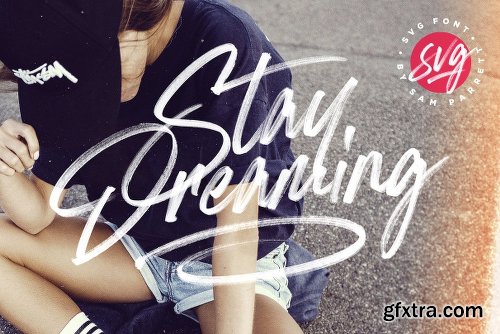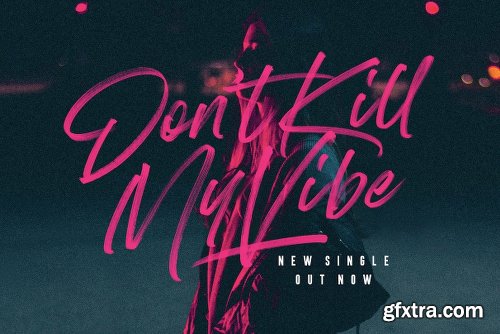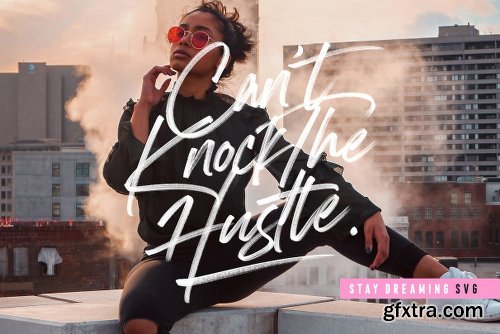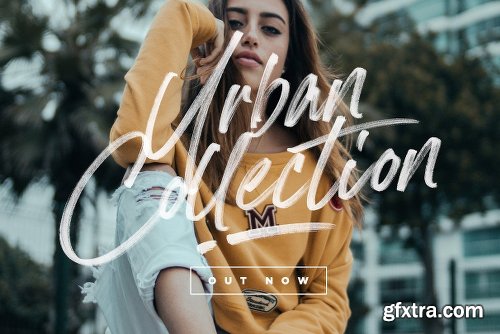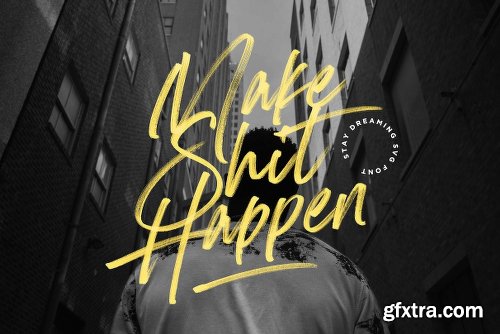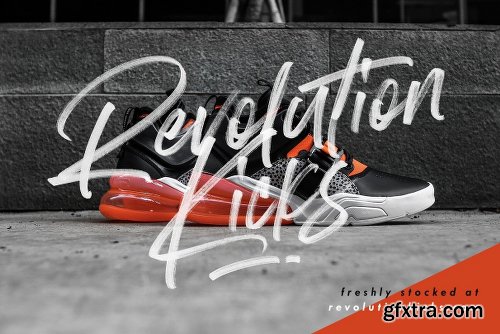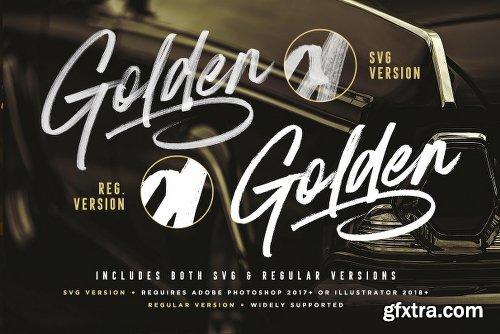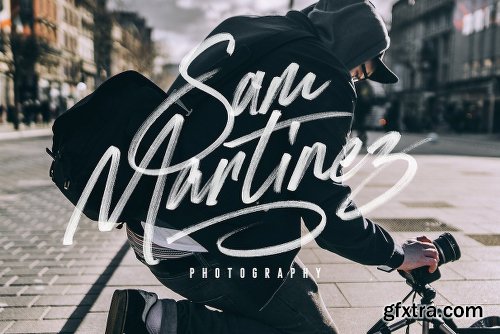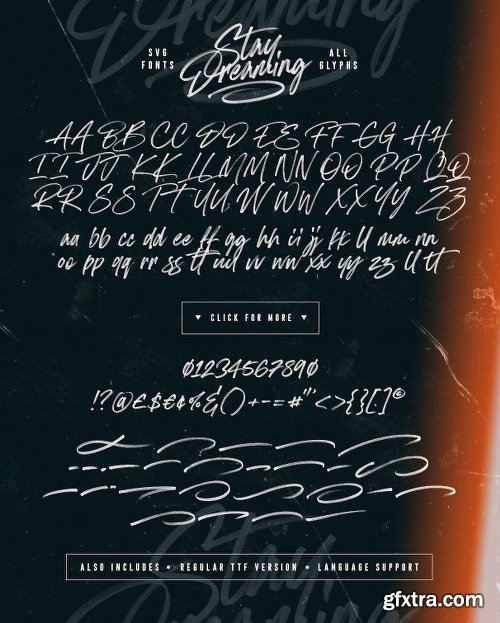
Introducing Stay Dreaming SVG Font! An expressive, streetwise script font with a fast flow and dry textures to the max. It's a bold choice of typography ideal for injecting a confident, custom-made style to your design project.
Stay Dreaming is packed full of extra features; The script font includes a full alternate set of characters, as well as an additional SVG version, containing extra high-resolution marker pen textures. Also included is a set of 26 Swashes, these fast strokes are ideal for underlining the script font and giving your text that extra flair & customized feel.
Stay Dreaming Font • A fast-flowing & expressive textured script font. Use this version if you need the font in a traditional vector format, but still maintaining an authentic rough hand-made finish to it's edges.
Stay Dreaming SVG Font • Use this version of the script font to re-create stunning hand-lettering with high-definition marker-pen textures, completely built in to the font as a transparency.
Stay Dreaming Alternates • Stay Dreaming & Stay Dreaming SVG both include an 'Alt' version, this has replaced all of the script characters with a completely new set. If you wanted to avoid letters looking the same each time to recreate custom lettering, or try a different word shape, simply switch to the 'Alt' fonts for an additional layout option.